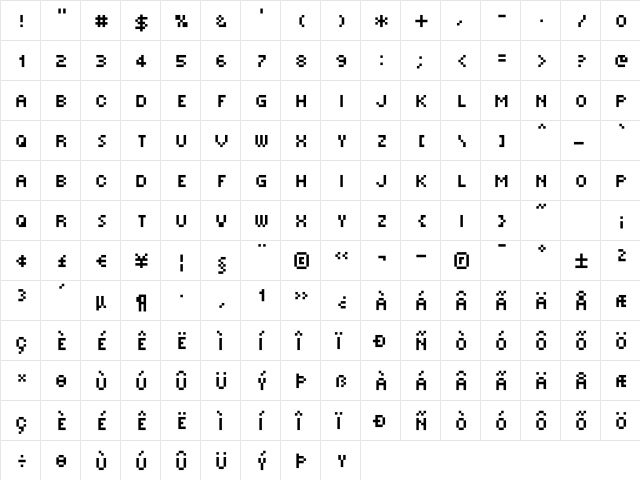
Mini 7 Condensed Regular
Design Context for Mini 7 Condensed Typeface
Mini 7 Condensed offers clean, dependable letterforms without strong stylistic allegiance, making it a practical choice for designers who need flexibility. The condensed width makes it efficient for tight spaces without sacrificing legibility.
Pro Tip: Use Mini 7 Condensed in both headline and body roles to test its range before committing to a single application.